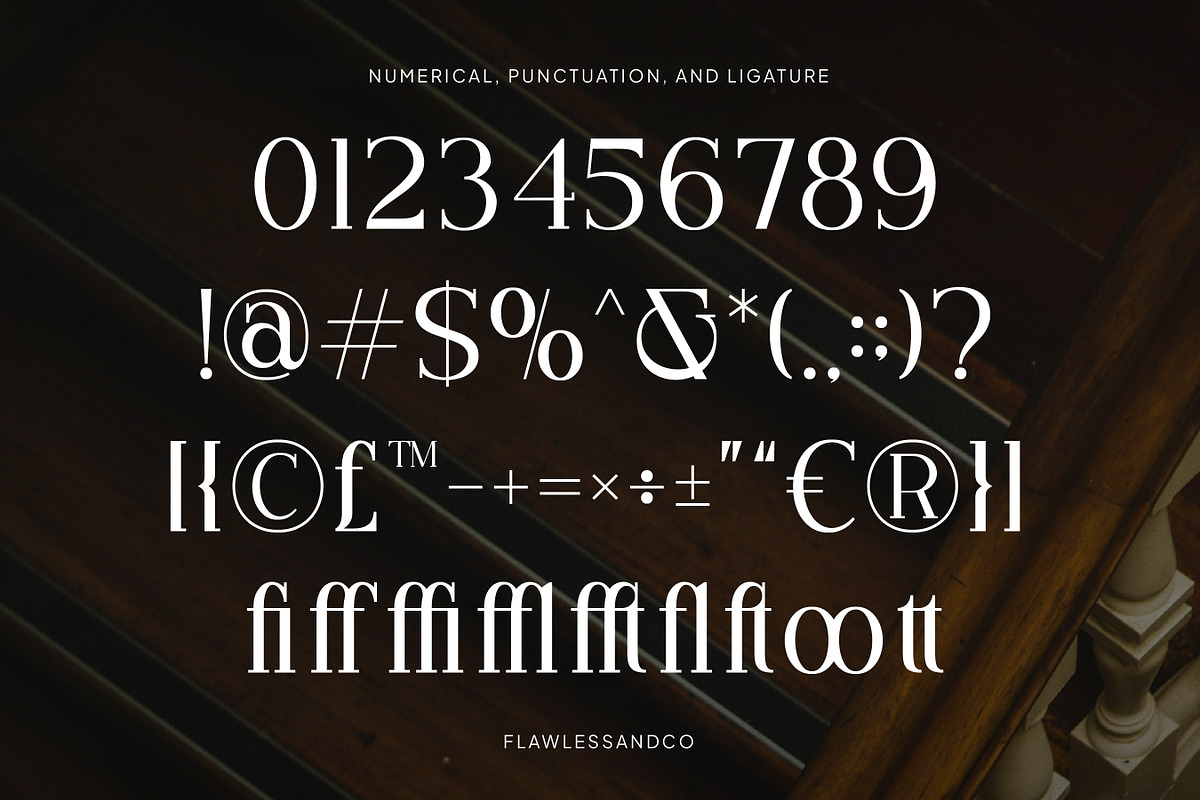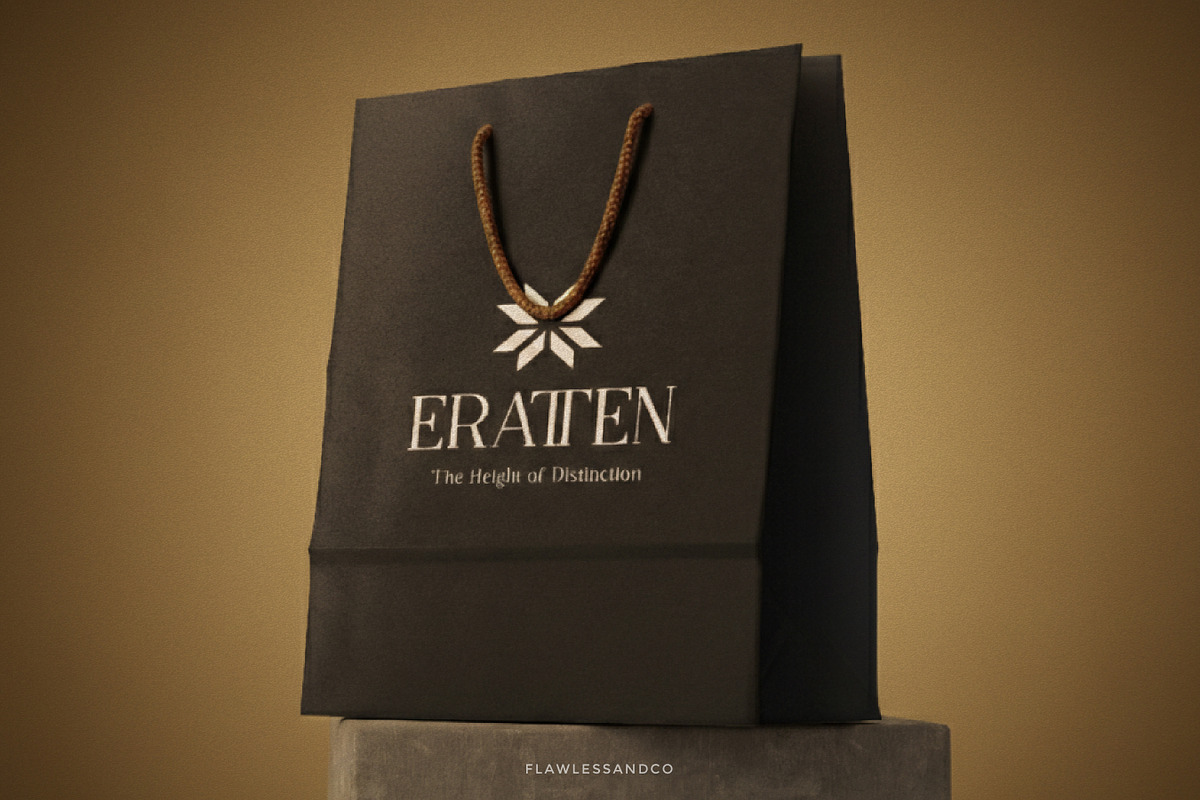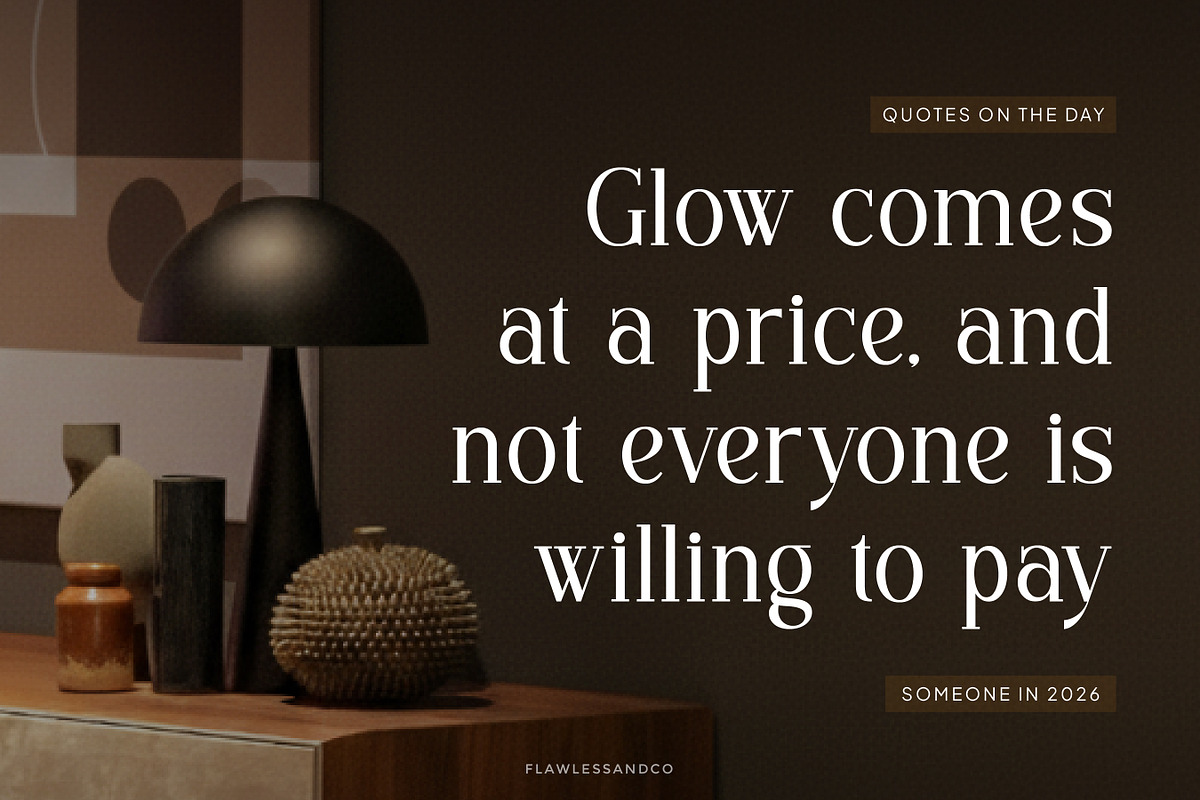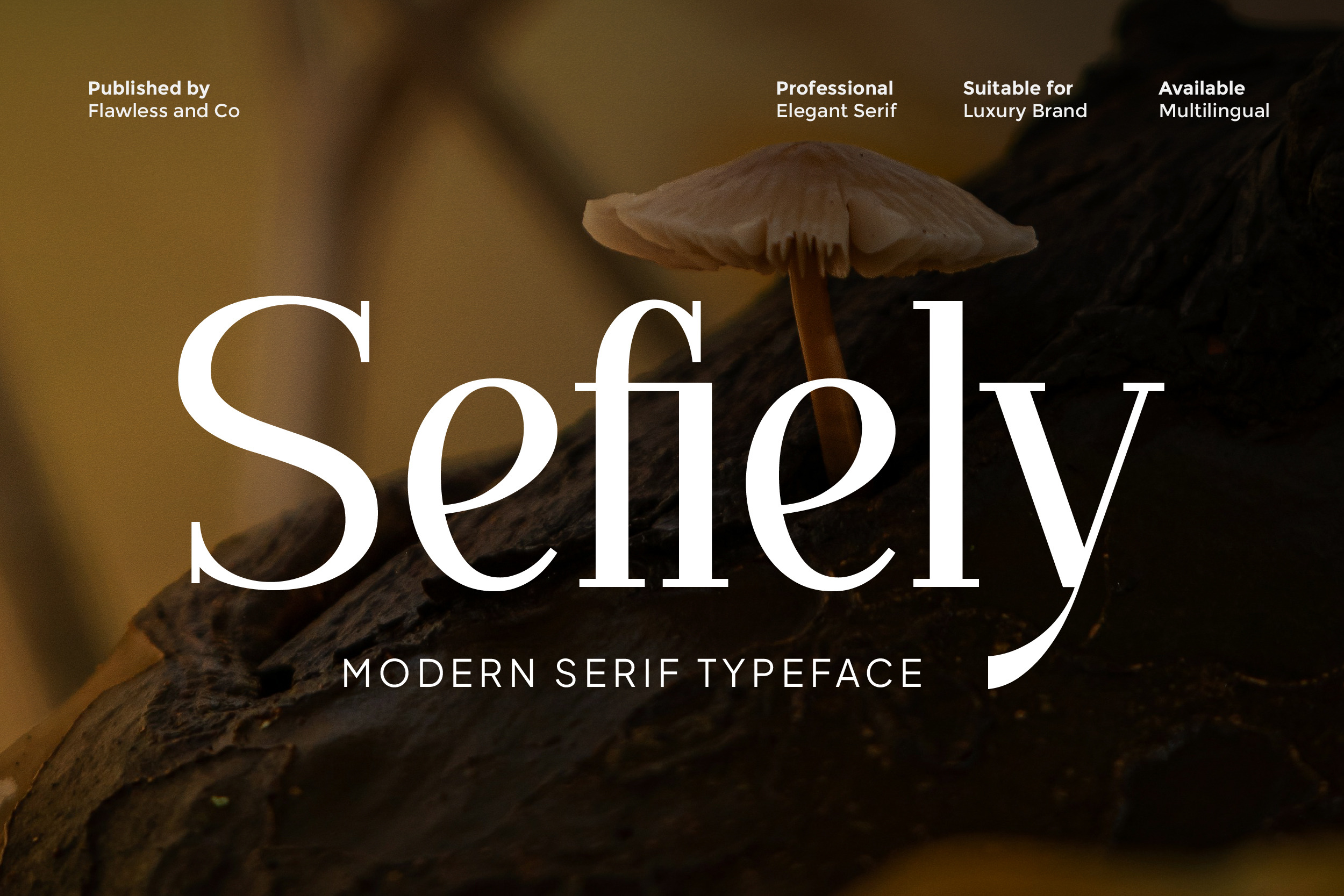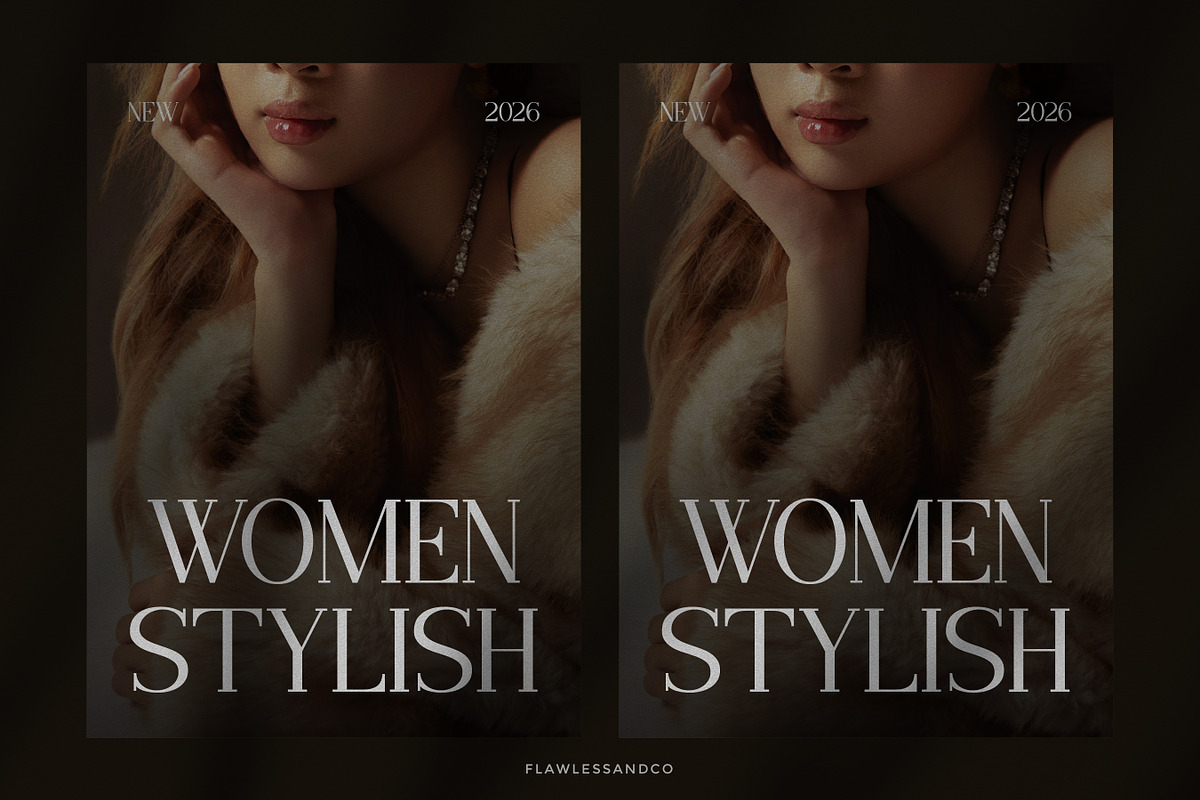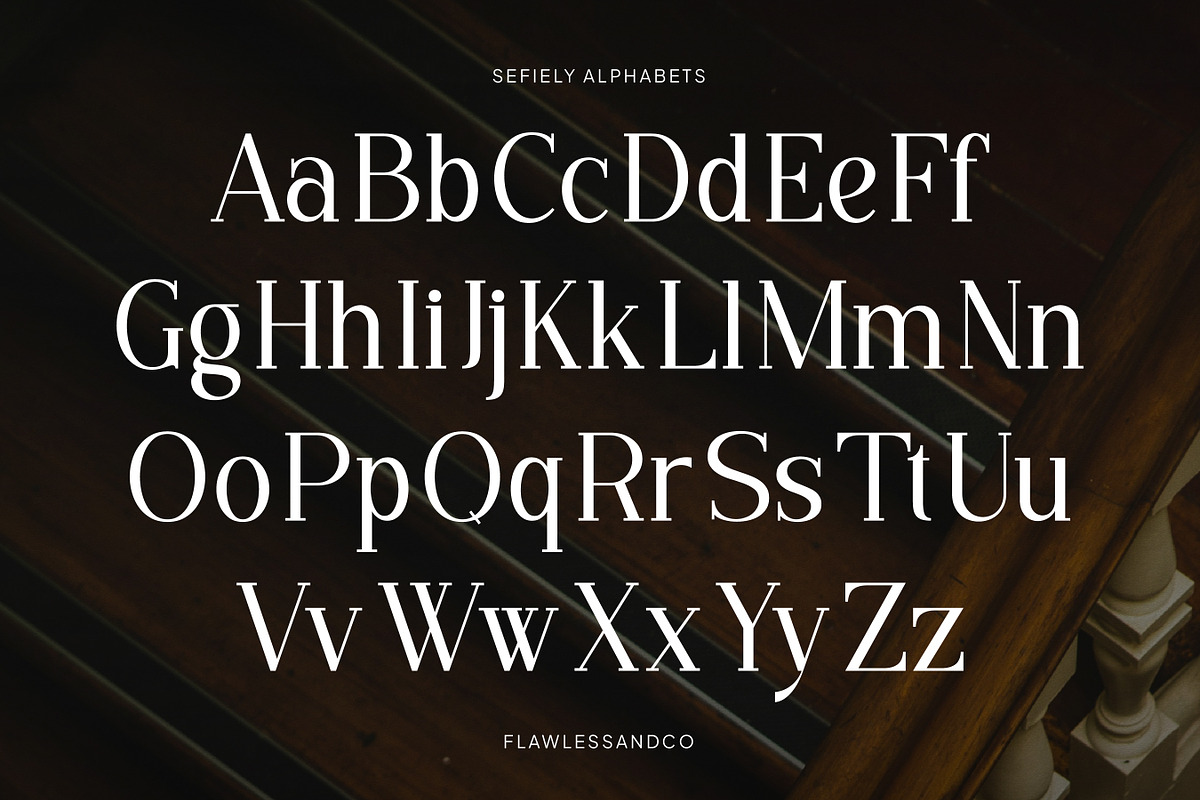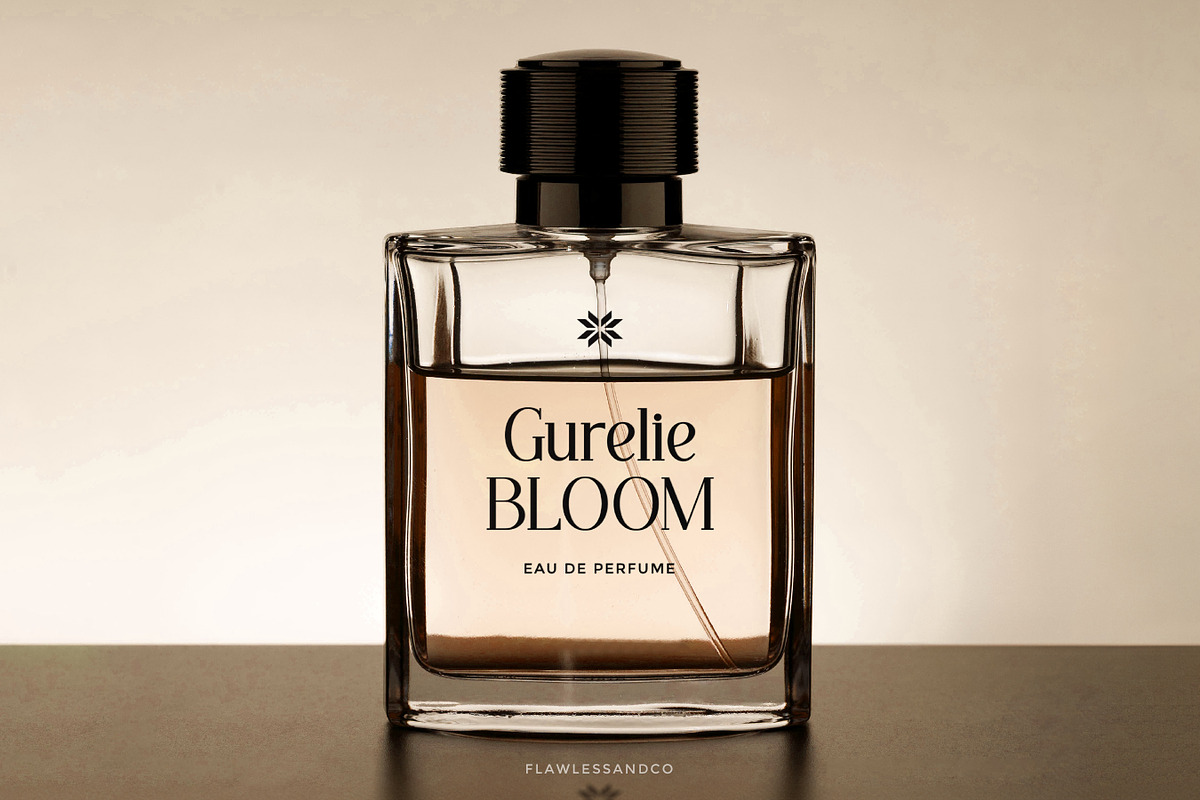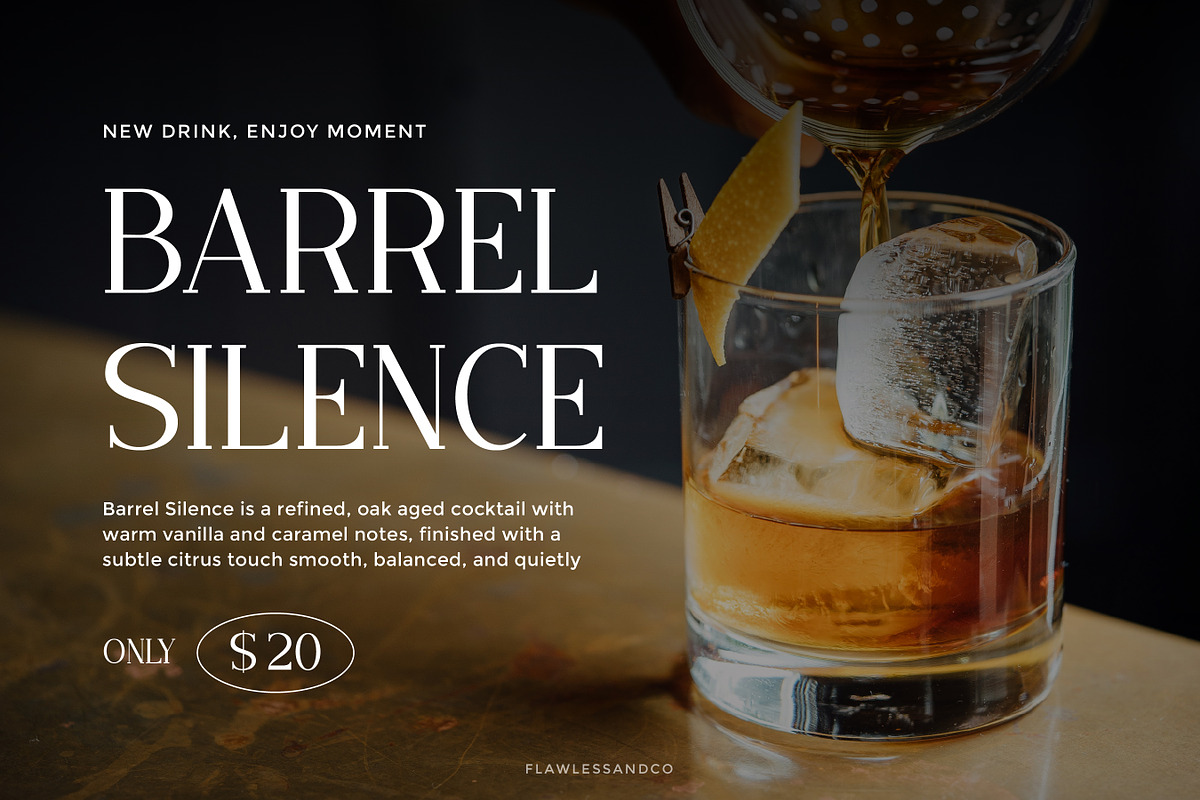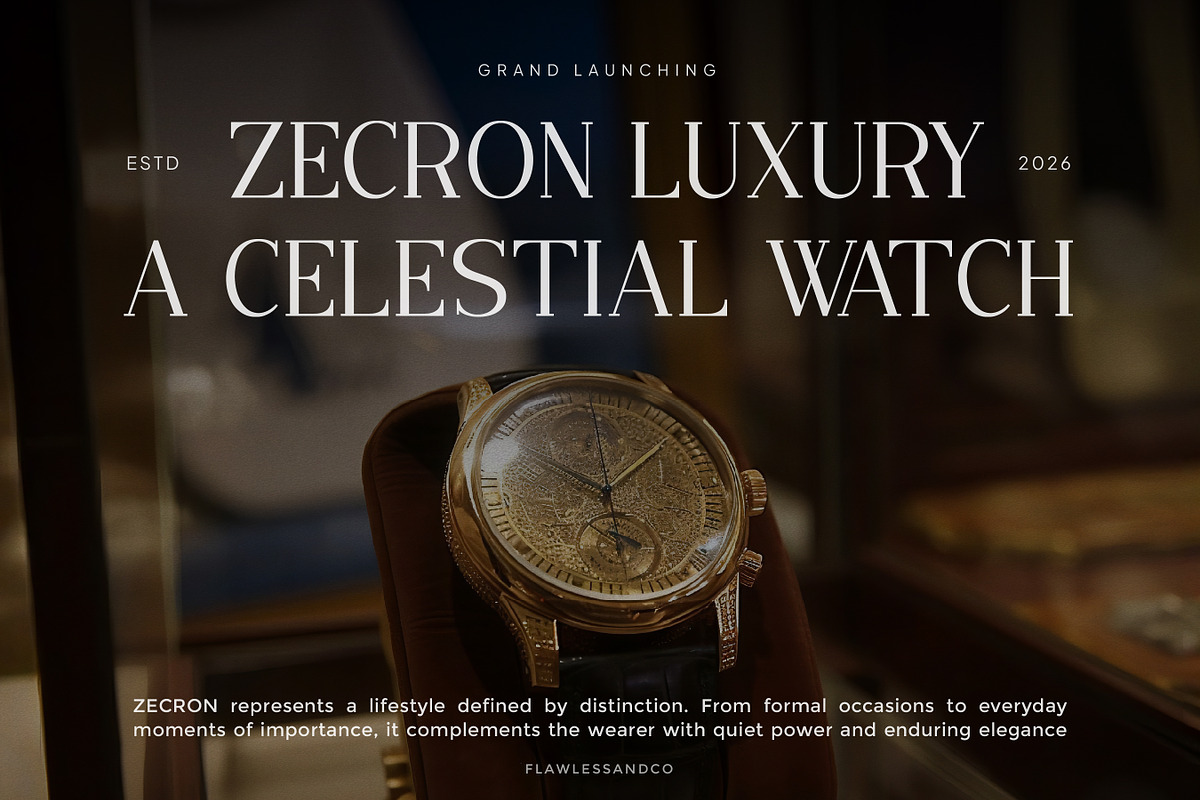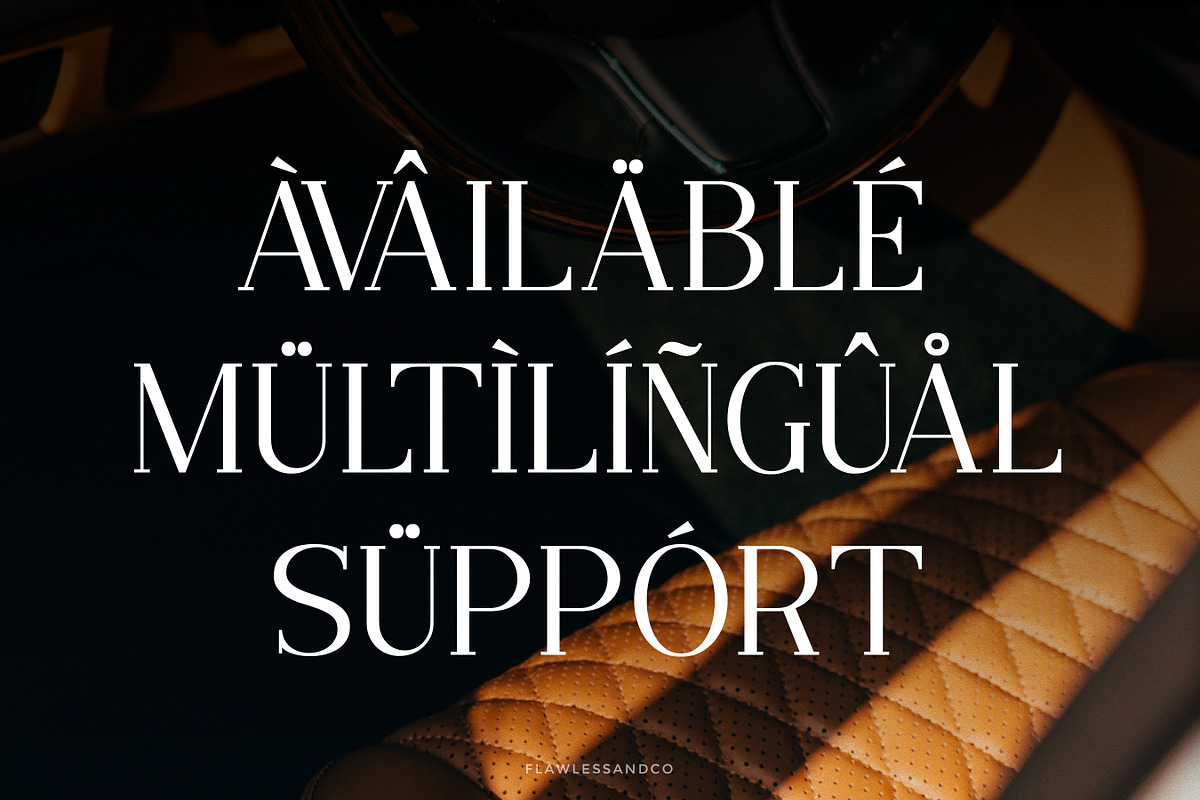
Sefiely - Modern Serif Font
Sefiely is a modern serif typeface that blends timeless elegance with contemporary sophistication. Designed with graceful proportions and clean, confident serifs, Sefiely delivers a luxurious and professional feel that elevates any visual identity. Perfectly balanced between classic and modern aesthetics, Sefiely is ideal for high-end branding, logos, editorial layouts, and premium marketing materials. Its refined letterforms ensure excellent readability while maintaining a distinctive, stylish presence that stands out across both digital and print media.
Who Should Use Sefiely?
Sefiely is perfect for designers, brand strategists, and creative professionals who want to convey elegance, confidence, and modern luxury in their work. It’s an ideal choice for luxury brands, fashion and beauty labels, editorial designers, and businesses seeking a refined visual identity. Sefiely also suits entrepreneurs, content creators, and marketers who need a sophisticated serif font for logos, headlines, packaging, and premium promotional materials—both in print and digital formats.
Suitable for:
- Luxury branding and logo design
- Fashion, beauty, and lifestyle brands
- Editorial design, magazines, and headlines
- Product packaging and labels
- Wedding invitations and elegant stationery
- Advertising, posters, and promotional visuals
- Social media and premium digital content